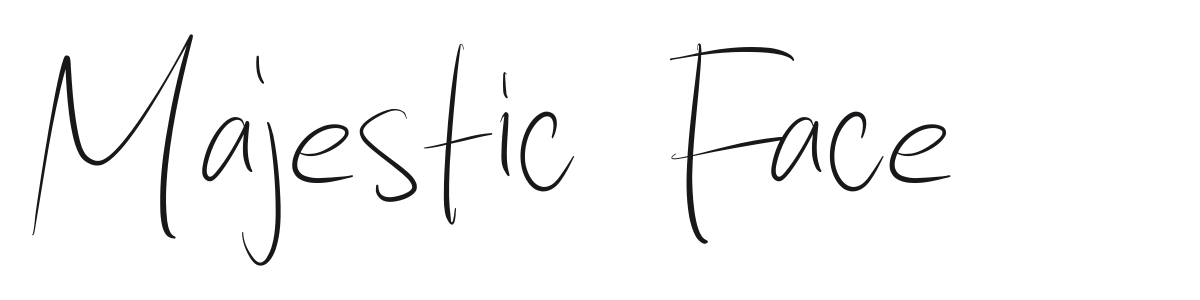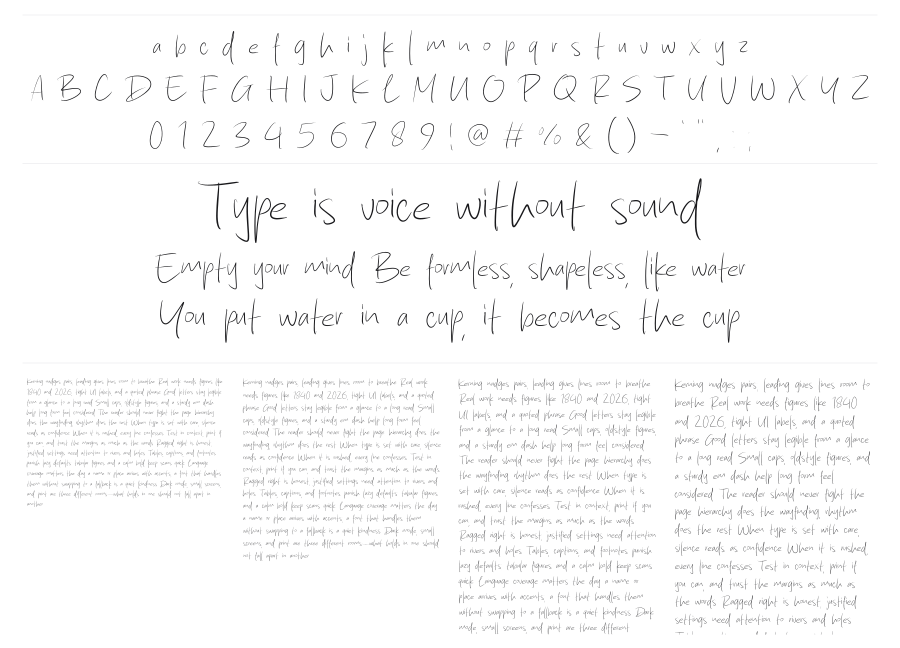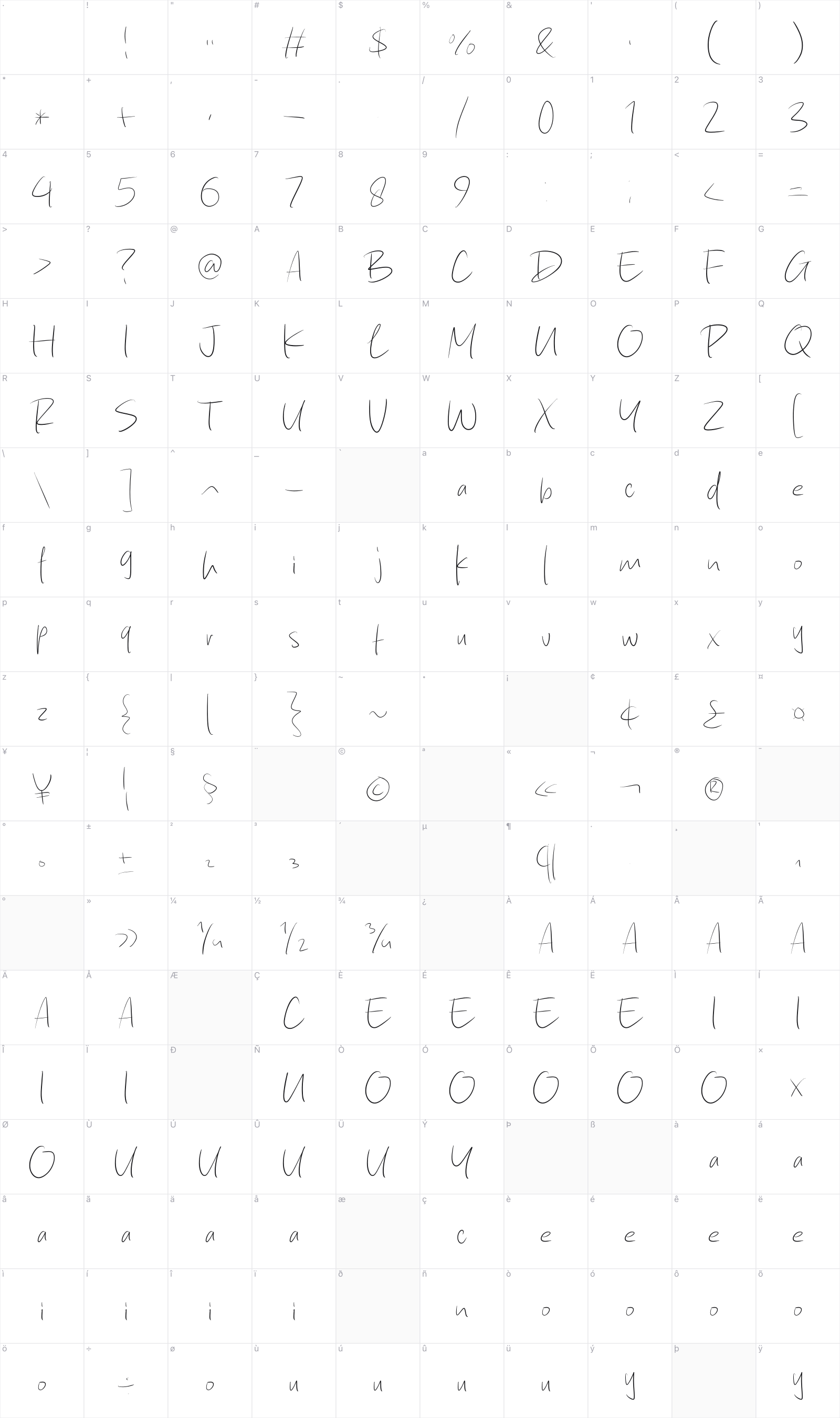
Majestic Face
Majestic Face is a casual handwritten script that looks like it was written with a fine pen in one uninterrupted motion. The thin, slightly irregular strokes and loose connections between letters give it a natural, unscripted quality that feels personal rather than designed. It suits branding and packaging where authenticity and a human touch matter.